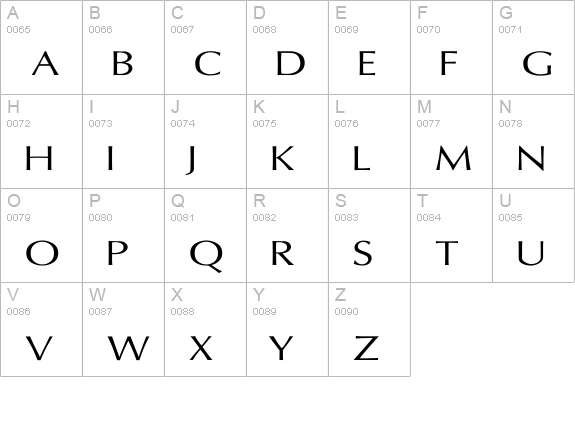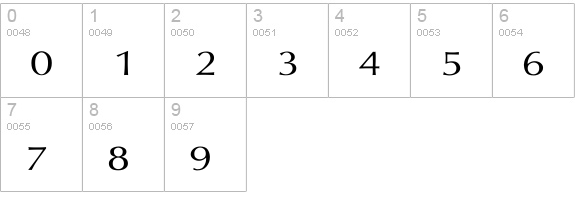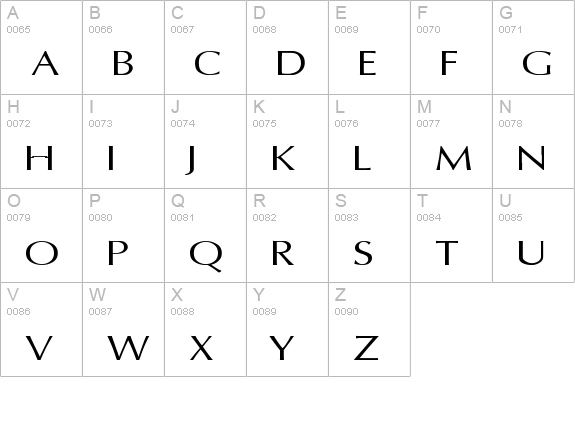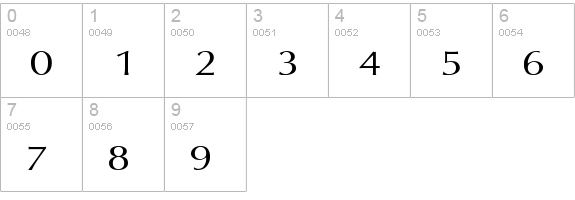
Oxford Wd font is a stunning display typeface that exudes elegance and sophistication. Its intricate details and vintage charm make it perfect for projects that require a touch of nostalgia and class. This versatile font is ideal for a wide range of design applications, from branding to packaging to invitations. The best part about Oxford Wd font is that it is completely free to download at FontsMarket.com. This means you can elevate your designs without breaking the bank. With its timeless appeal and effortless style, Oxford Wd font is sure to make a lasting impression on any project. Download it today and let your creativity soar!